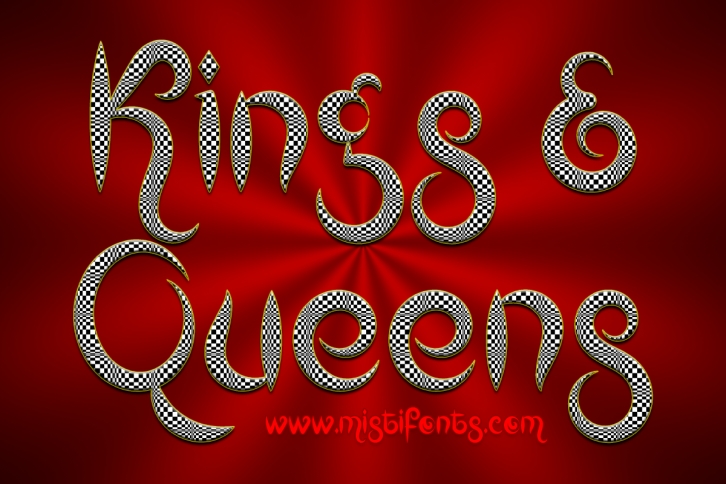
Kings and Queens is a great font that was designed by Misti Fonts. Imagine the amount of combinations you can create using this font! The archive is 9.51 MB and it was released on January 8, 2018. Kings and Queens looks beautiful on wedding invitations, greeting cards, logos, posters, labels, t-shirt designs, logos, business cards and is perfect for use in ink or watercolor works, fashion, magazines, packaging and food menus, children's books and more!